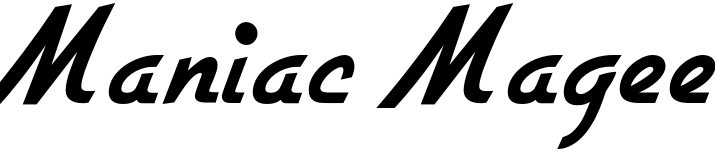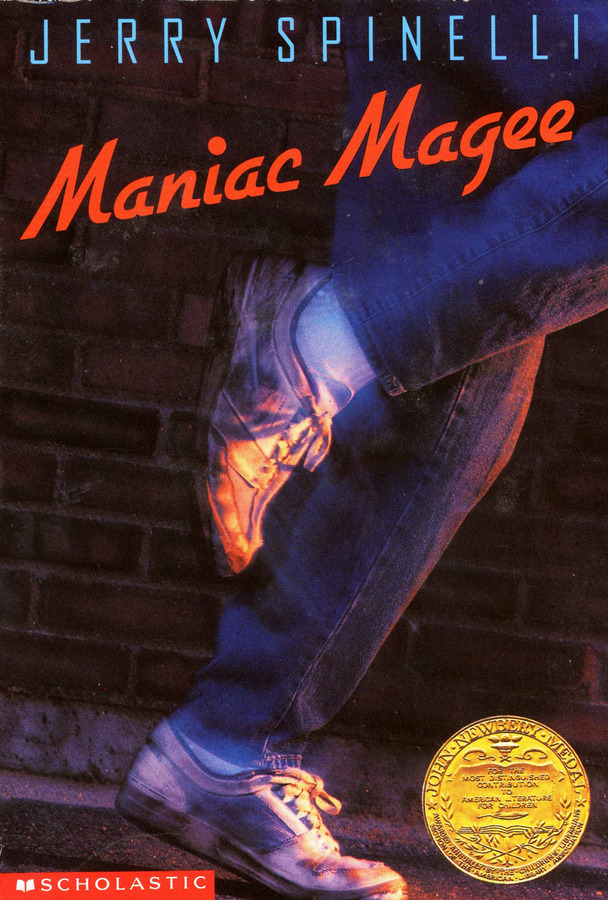
Maniac Magee Font
BookManiac Magee is a young adult novel written by Jerry Spinelli. It was published in 1990 and has won numerous awards, including the Newbery Medal. The story follows the life of Jeffrey Lionel "Maniac" Magee, a homeless orphan who becomes a legend in the racially divided town of Two Mills, Pennsylvania. In 2003 a movie adaptation was made for the Nickelodeon network.
The font used on the book's cover is Gillies Gothic Bold, a casual script font that William S. Gillies initially created for Bauer'sche Schriftgiesserei. Agency FB by David Berlow and Morris Fuller Benton appears as the author's name in sans serif type.